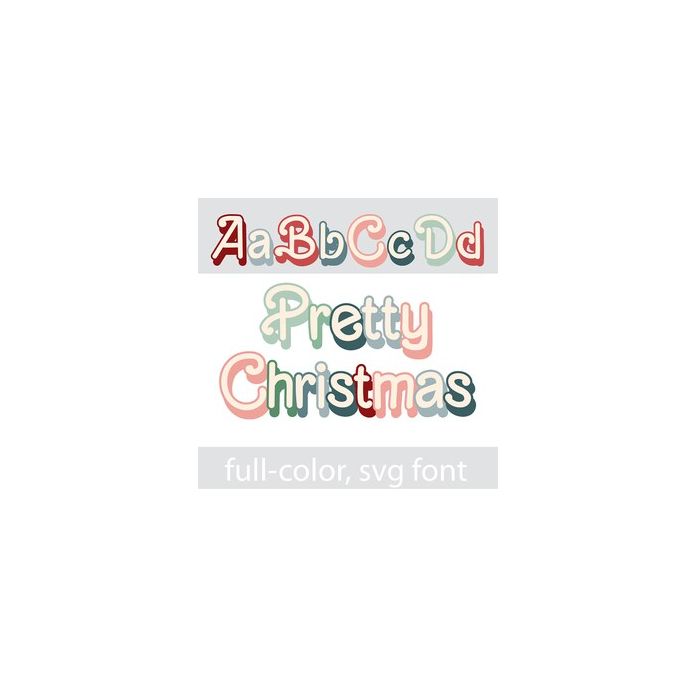
This pretty, hand-written print has a big 3d shadow and is created in a soft Christmas color palette. There is an alt case w/ additional colors you can access through your system or Silhouette's glyph map.